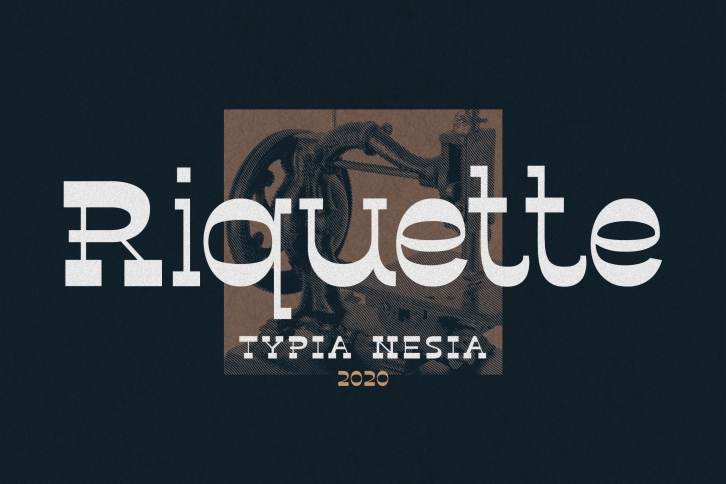
Riquette is a gorgeous font that was realeased on June 12, 2020. The font can be used in many style contexts and design environments. Perfect for invitations, magazines, websites, logos, and more! It was designed by Typia nesia and the file size is 17.39 MB. Thanks for checking out this font!